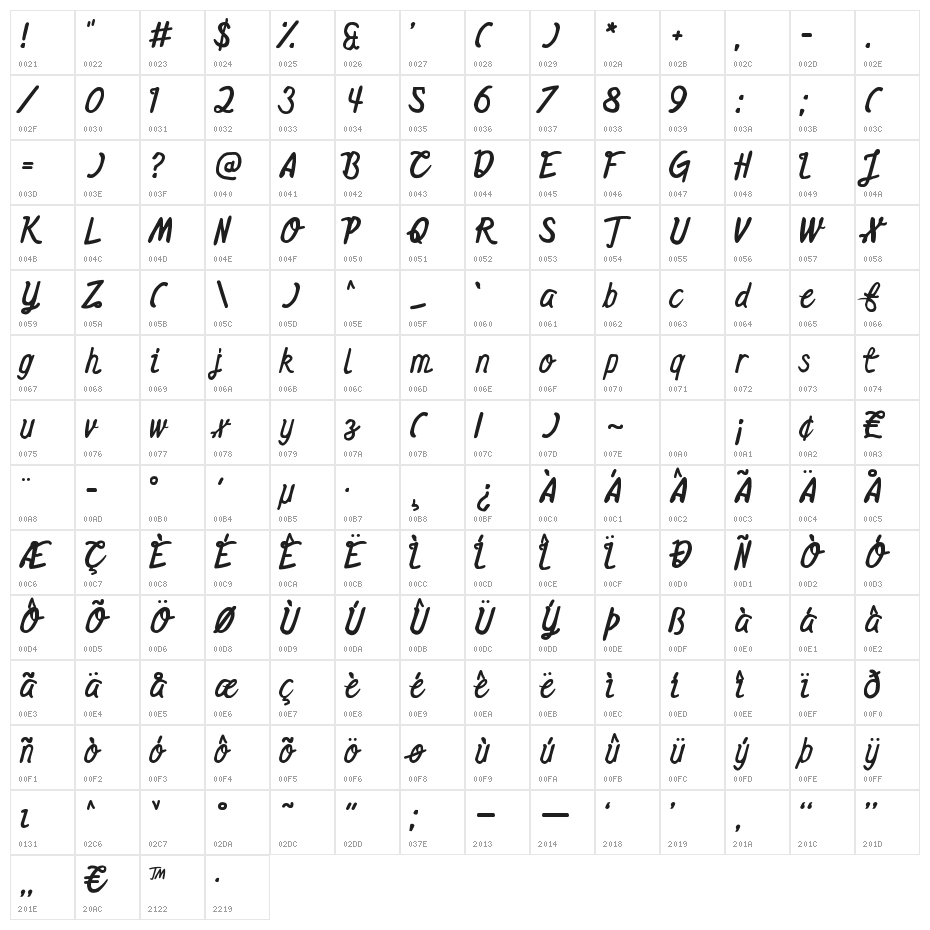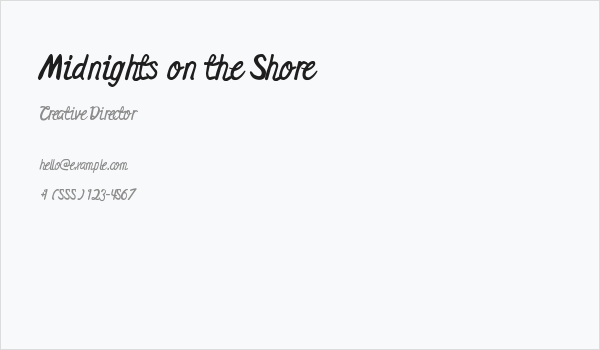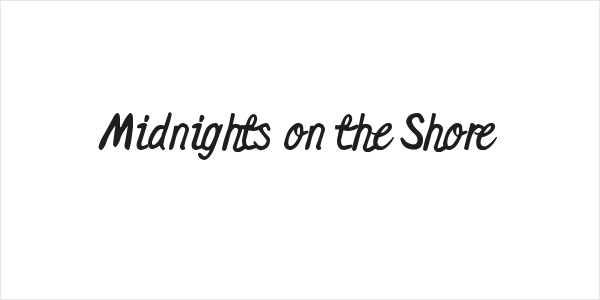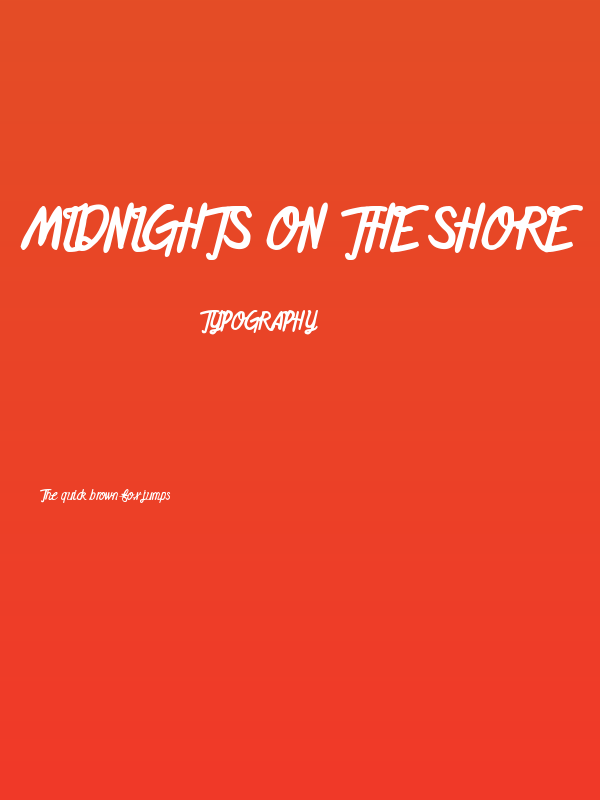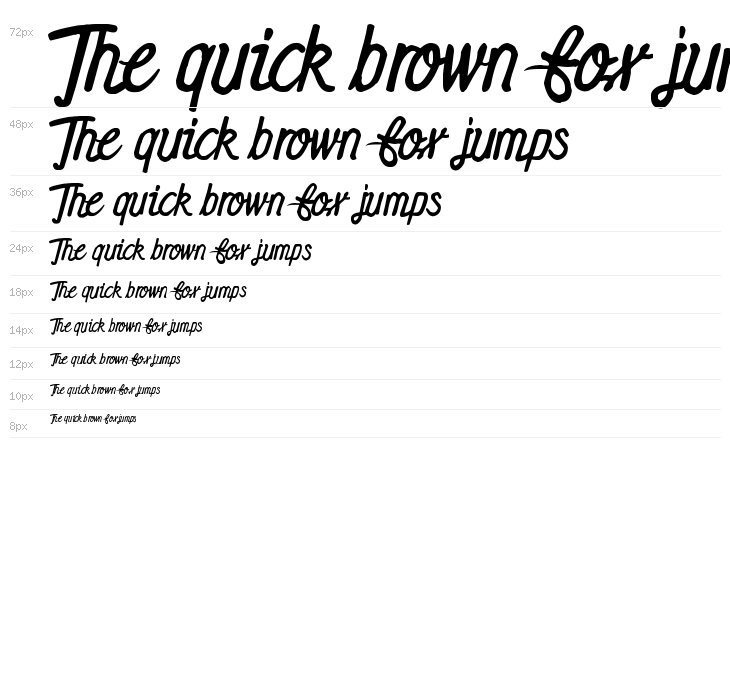
Midnights on the Shore Font
Midnights on the Shore Description
This font features a bold and expressive handwritten style, characterized by its fluid and dynamic strokes. The letters are interconnected, giving a sense of continuity and flow, reminiscent of casual script writing. The uppercase letters are slightly more structured, while the lowercase letters exhibit a playful and informal touch. The numerals maintain the same lively style, ensuring consistency throughout. Special characters are creatively integrated, enhancing the font's versatility. Overall, this font exudes a sense of spontaneity and creativity, making it ideal for projects that require a personal and artistic touch.
| Proposed Projects | Ideal for greeting cards, invitations, personal branding, and artistic projects. |